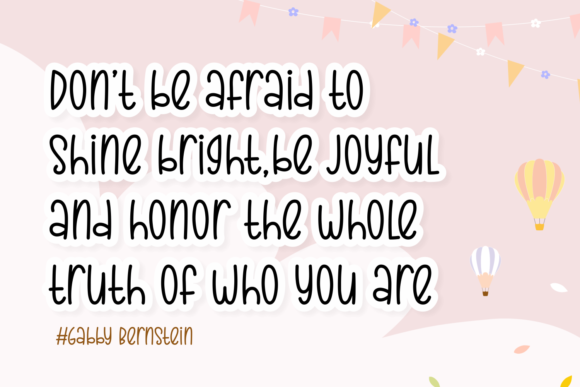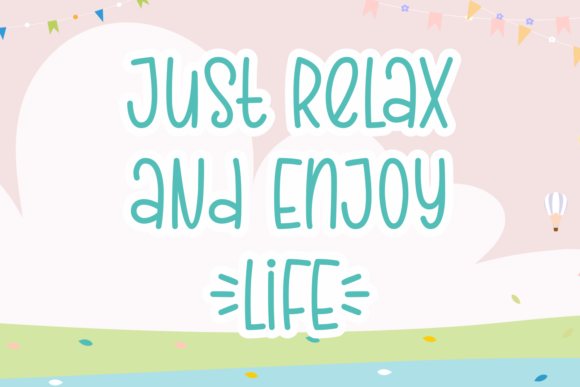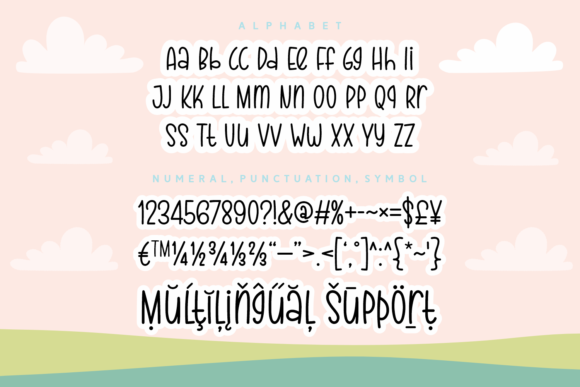
Amazing Culine Font
About Amazing Culine Font
Amazing Culine is a delightful and versatile handwritten font that effortlessly combines sweetness, delicacy, and neatness. This charming typeface is designed to infuse a sense of fun and jolly vibes into various design ideas. Whether you’re working on branding, invitations, posters, or any creative project that requires a touch of playfulness, Amazing Culine proves to be an ideal choice.
The sweet and delicate characteristics of Amazing Culine set it apart, making it well-suited for creating designs that exude warmth and friendliness. The handwritten style adds a personal touch, making it perfect for projects that aim to convey a lighthearted and approachable atmosphere. The neatness of the font ensures readability while maintaining an overall sense of cleanliness and sophistication.
The versatility of Amazing Culine shines through in its adaptability to different design contexts. Its playful and jolly vibes make it suitable for a wide range of creative applications, allowing designers to explore various possibilities. Whether you’re crafting a brand identity, designing invitations for special occasions, or creating eye-catching posters, this font proves to be a valuable asset.
In addition to its aesthetic appeal, Amazing Culine is user-friendly with its neat and well-defined letterforms. The font’s readability ensures that your messages come across clearly, while its handwritten charm adds a unique and personalized element to your designs.
In conclusion, Amazing Culine is more than just a font; it’s a delightful and versatile handwritten typeface that brings joy and charm to your creative endeavors. Its sweet, delicate, and neat qualities make it suitable for a myriad of design projects, allowing you to infuse a sense of playfulness into your branding, invitations, and posters. Let Amazing Culine be the font that adds a touch of fun and jolly vibes to your design repertoire.